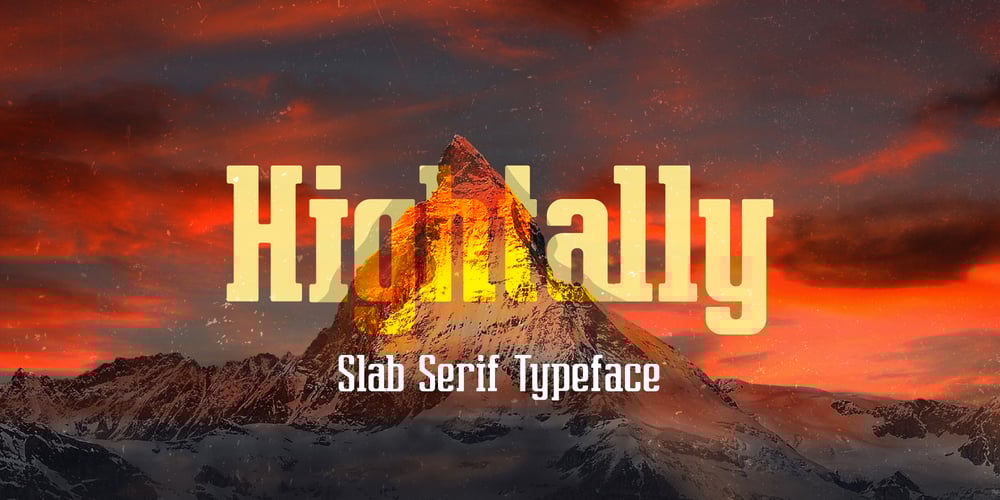
Hightally Font Family was designed by Mohammad Teguh and published by Starone Project. Hightally contains 3 styles and family package options. Create new slab serif from starone project foundry. With rounded edge on the font.